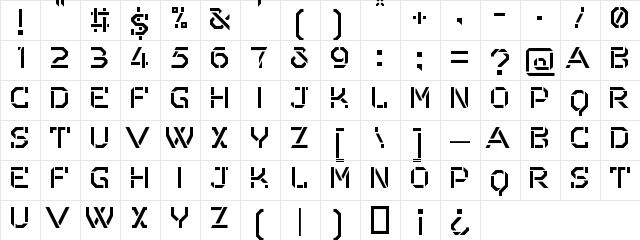
Odessa Regular
| Designer | 1saac |
Design Context for Odessa Typeface
Odessa takes a measured approach to typography — its balanced proportions and neutral character make it a reliable workhorse for both digital and print work.